In addition to other writing forms like Naskh, Nastaliq, Diwani, Kufic style has also made his name in the font world. Square Kufic is likewise called banna’i. Created in the 12th century, it is a bare Arabic writing form. Originally, it was made in Iranian architecture with tiles as well as bricks functioning as pixels. Readability is not the first priority of this traditional script, however most of them are still highly legible even at smaller sizes. Therefore, you often seen it in architectural work or Islamic art inspired paintings.
Furthermore, you can use these kinds of fonts for traditional calligraphy writings. The letters of this font have a very geometric appearance and are in proper order, giving a very clean and symmetrical look. These classical fonts also offers a modern appeal that designers utilize. Majority of these fonts have straight baseline and sharp or pointy edges. Below, we will discuss some of the pure square Kufic fonts that will allow you to choose one according to your projects needs and requirements. Also, learn more about 12 Best Urdu Kufic Fonts for Kufic-inspired art and designs.
The availability of numerus types of Urdu Kufic fonts makes it easier to select one according to the requirements of the project you are working on. Here is the list of some the best Urdu Kufic fonts:
| Sr. No | Font Name | Font Designer/Trademark |
|---|---|---|
| 1 | Zawiya | Eyad Al-Samman |
| 2 | Raoof | Abdoaroof Aburzizh |
| 3 | Talat Unicode | Syed Manzar Hasan Zaidi |
| 4 | Kufigraph | Mostafa El Abasiry |
| 5 | Fenoon | Mostafa El Abasiry |
| 6 | TS Morabaat | Tarek Alsawwa (TS) |
| 7 | KacstDigital | KACST |
| 8 | Jawi Kufi | Zairochess Psudo |
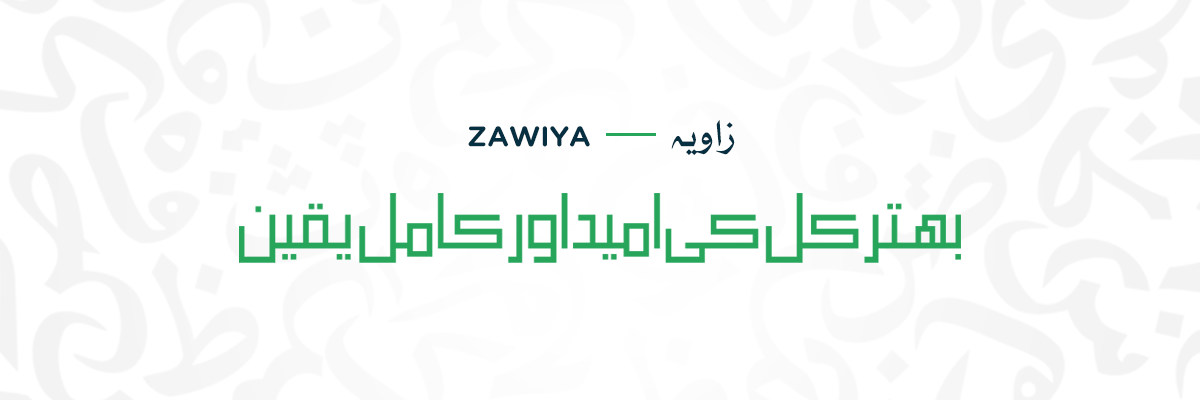
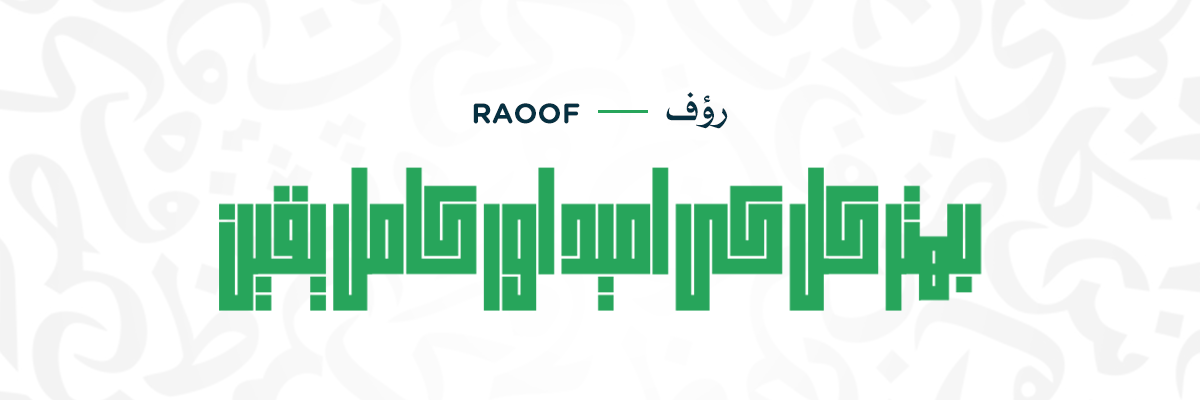
An Arabic font, Raoof is inspired by Kufic calligraphy. The designer of this font was Abdoaroof Aburzizh and has a trademark of ABD AL RAOOF. The font is monospaced with its letters of same spacing and width. Having 266 characters & 511 glyphs counts, the typeface offers high readability. Furthermore, the strokes have a constant thickness with squared corners. To give a professional and clean look to your projects, it is a good option.
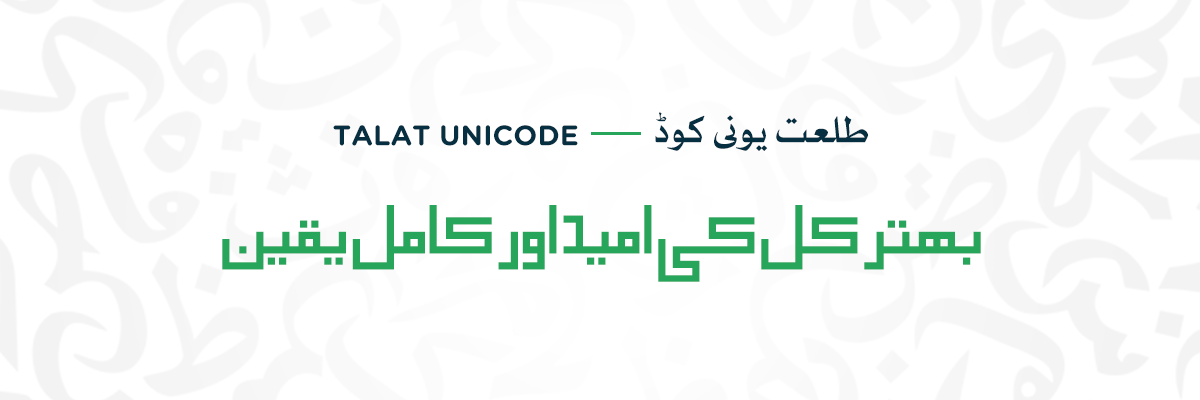
Talat Unicode was created by Syed Manzar Hasan Zaidi and the font is the trademark of Axis Softmedia Pvt. Ltd. With a huge character set of 444 and glyph count of 497, it is a good choice for projects with various languages. The maximum readability of this bold font allows you to read even at lower resolutions. Furthermore, the letters are wide, thick, filled with pointed edges. Commonly, it is perfect for writing headlines and titles in your designing projects, giving a sophisticated look.
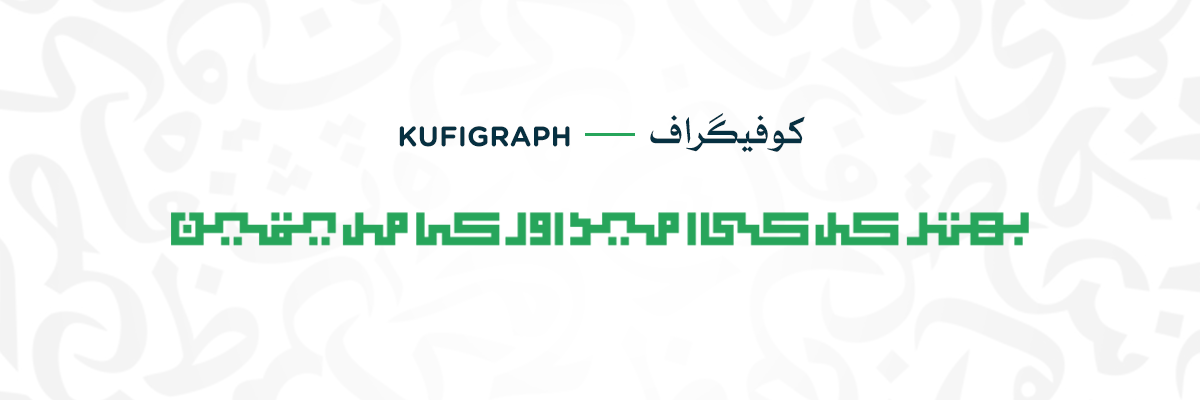
Kufigraph was designed by Mostafa El Abasiry in 2017. It is one of the complex square Kufic Urdu fonts, inspired by traditional art, perfect for the Arabic script because of its geometric and well-aligned appearance. It has a straight baseline and does not have any curved edges or corners like other traditional Kufic fonts. The font shows a modern appearance because its letters are in a proper symmetrical order. It is best to use in titles as well as headlines because of its high legibility. Furthermore, this Bannai font in 3 different weights: light, bold, and regular.
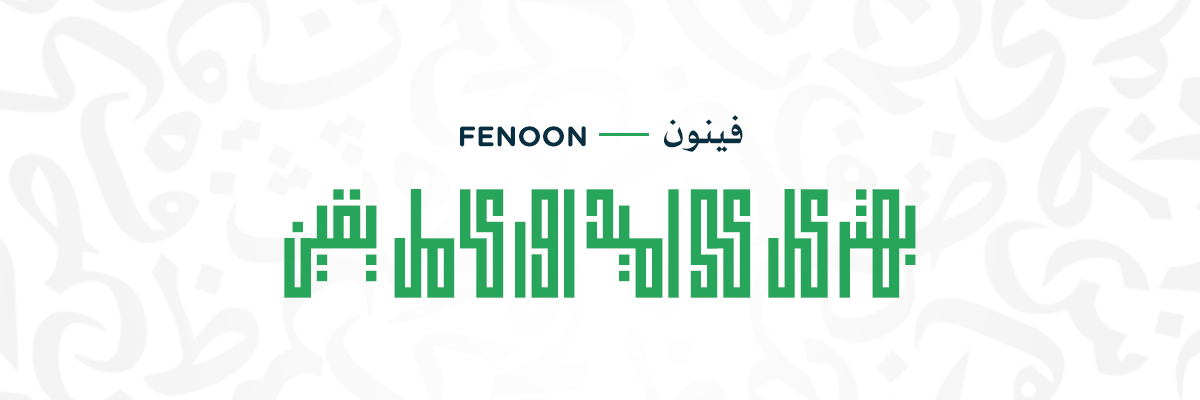
Designed by Mostafa EL Abasiry, Fenoon is another Arabic font inspired by the traditional Square Kufic script. The font was launched in 2021 and has a elongated letterform design. The typeface offers a bold and modern look. Its letters are quite tall and are available in different weights, from elegant and thin to bold. This permits users to control the intensity level based on their design requirements. Having 267 characters and 269 glyphs, it can support different languages.
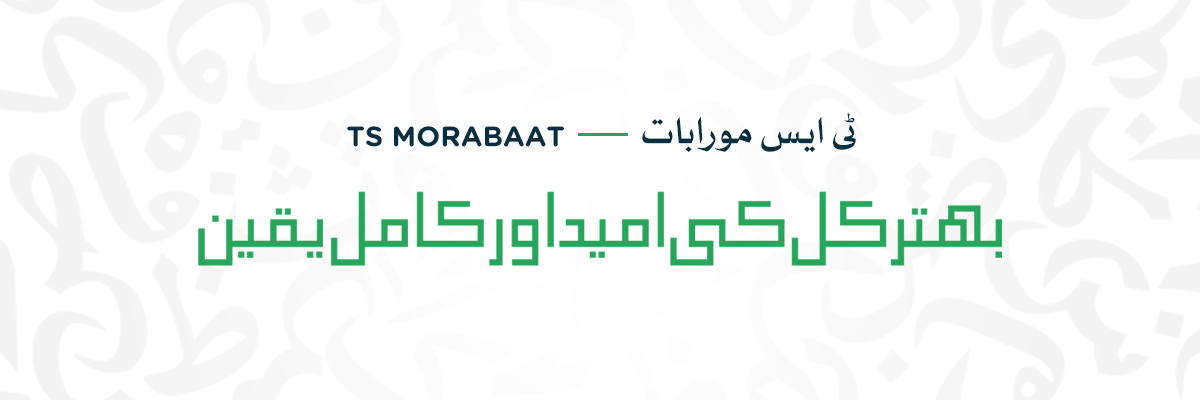
TS Morabaat was created by Tarek Alsawwa (TS) and was released in 2020. The font has a very design look with geometric squares placed in a proper symmetrical order. It is highly legible square Kufic font with wide-spaced letters. The font is likewise available in five different font weights for Persian, Urdu, Arabic, and English. It is a perfect to use in posters and headlines. However, because of its distinct design, it is not appropriate for lengthy texts. Moreover, learn more about Creative uses of Urdu Fonts in Pop Culture and how can you make the designs more captivating.
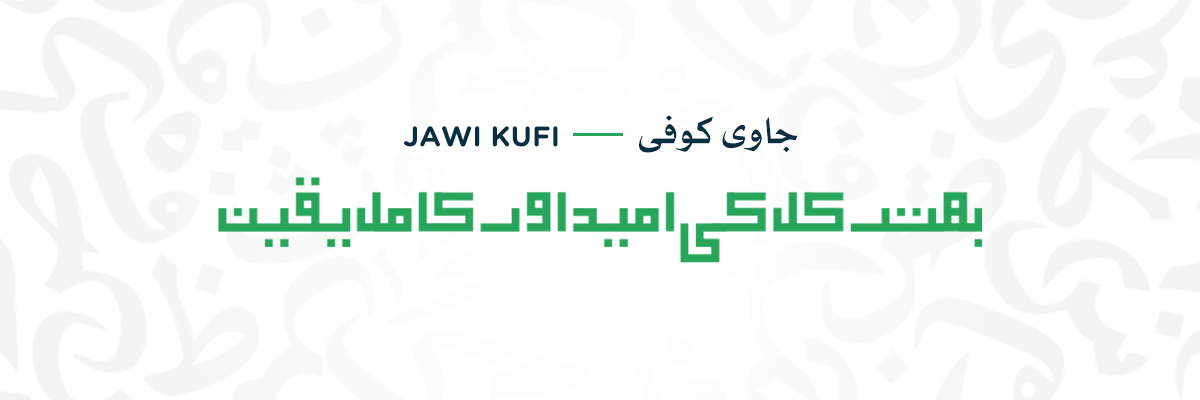
Jawi Kufi is one of the best Wide Square Kufic Urdu fonts. It was designed by Zairochess Psudo and commissioned by Inkscape. Due to its properly aligned letters arranged properly, it provides a visually appealing combination of classic and contemporary font. Its square, block-like dots have spaces between them and are not condense at all which gives a very tech look to this font. The letterforms are likewise wide and bold, just like a pure Kufic script. With pointy corners and edges, it is a good option to use for short texts, titles, pointers, etc.